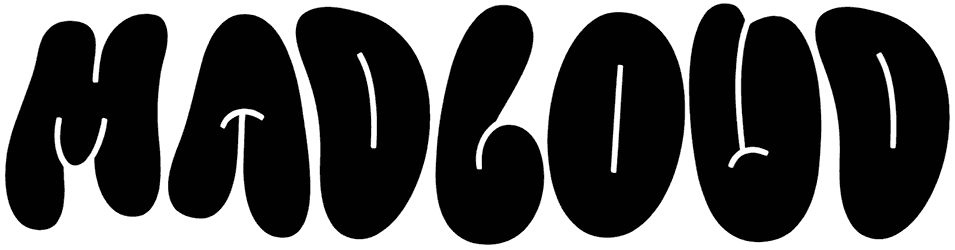
TF Madloud Font
You can do a lot of stuff with a balloon font like TF Madloud, but ironically, celebrating a birthday isn’t one of them. Why, you ask? Because the entire numeric set is missing. So how are you going to spell the age they’re turning into? Unless you want to say “Happy Birthday” and leave it at that.
However, those curves in their soft style are too playful to be limited to HBD cards. You still have other options, like anything cartoonish.